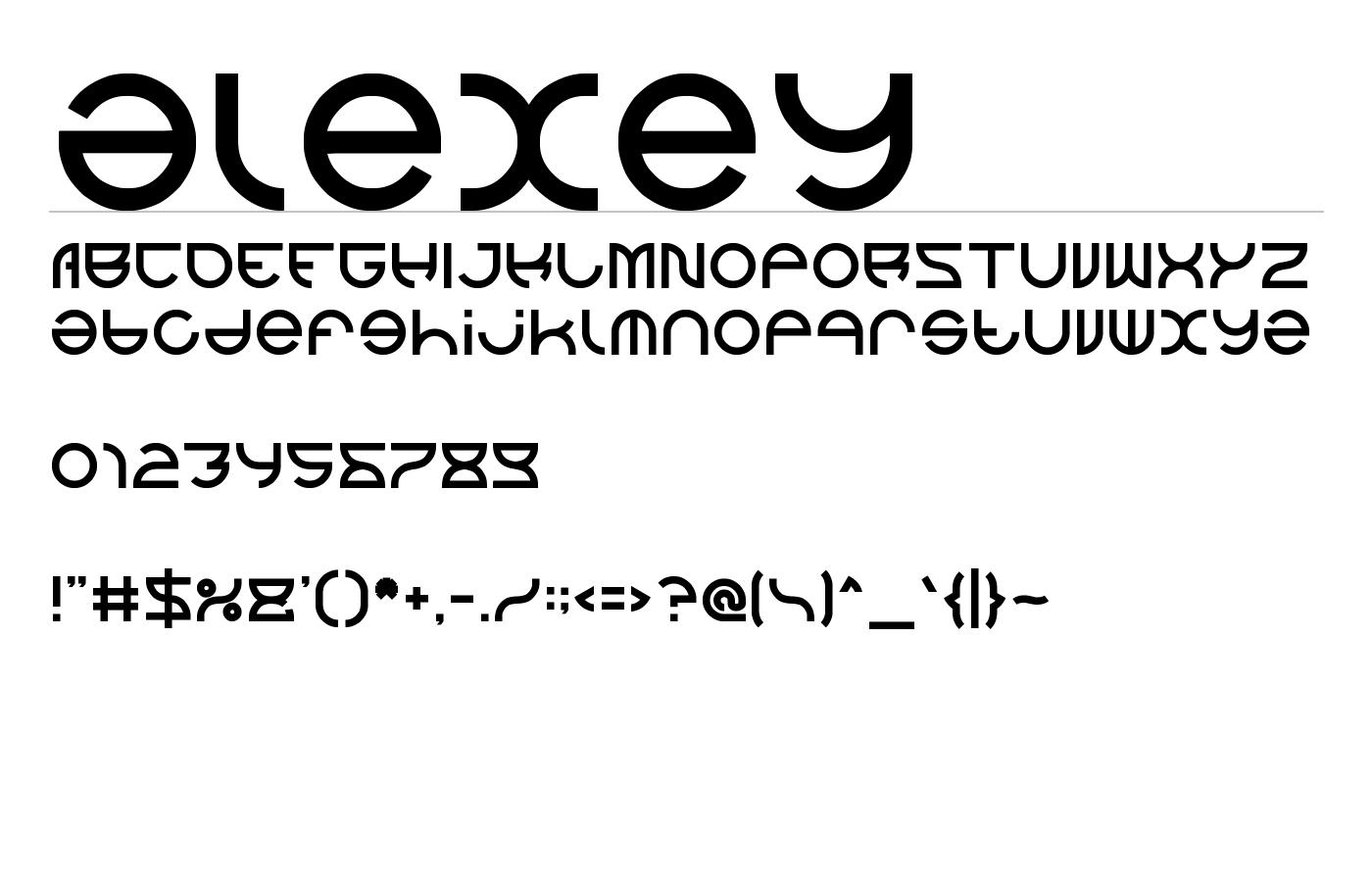
Alexey is a modern, geometric sans serif font with a distinctive futuristic and experimental vibe. Its bold weight and tight spacing combined with unique curved and angled letterforms give it a tech-inspired, avant-garde personality, making it ideal for creative branding, tech startups, and eye-catching headlines. The font’s unconventional shapes and strong visual presence work best where originality and impact are needed.
alexey Font
About alexey Font